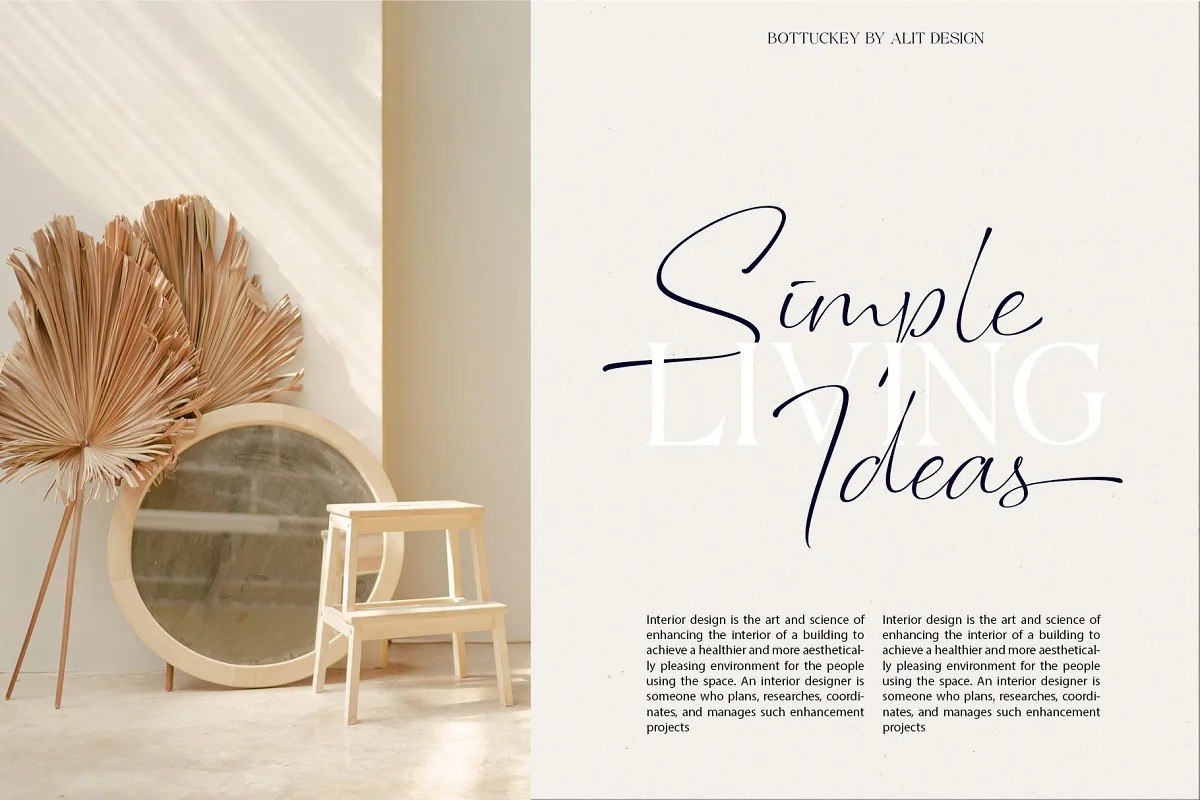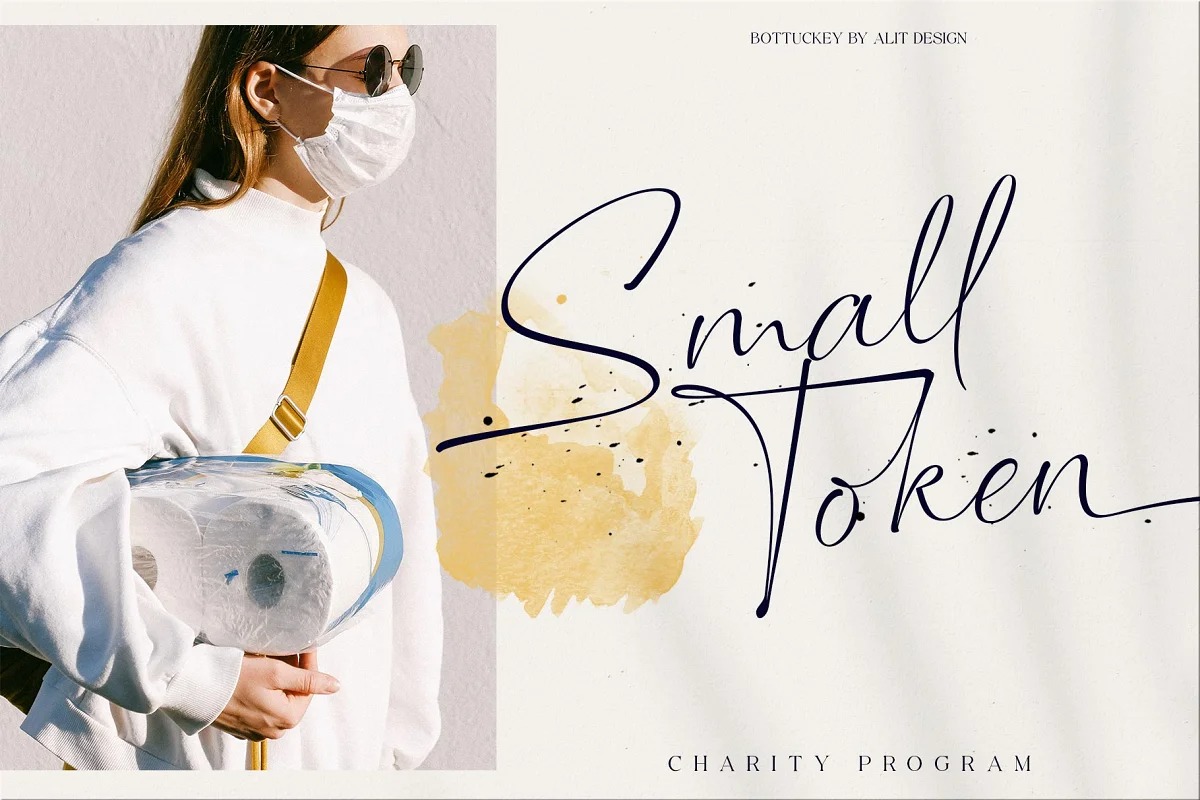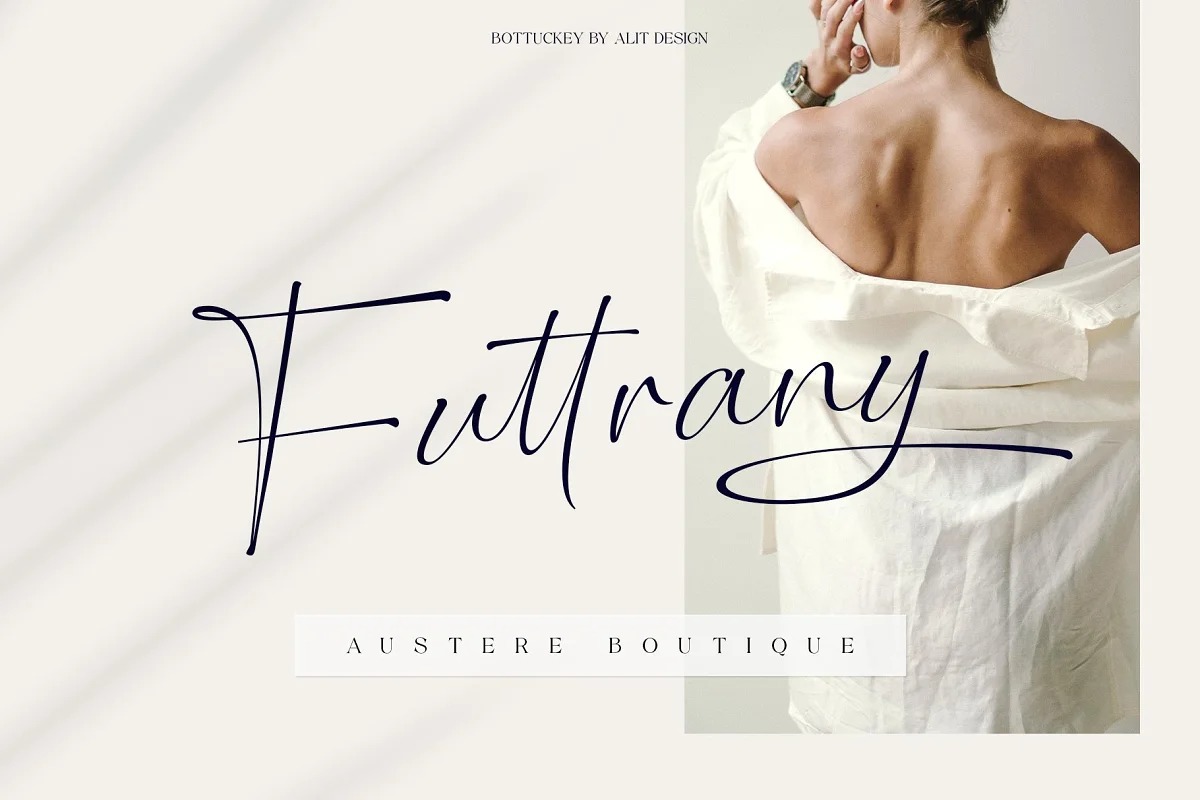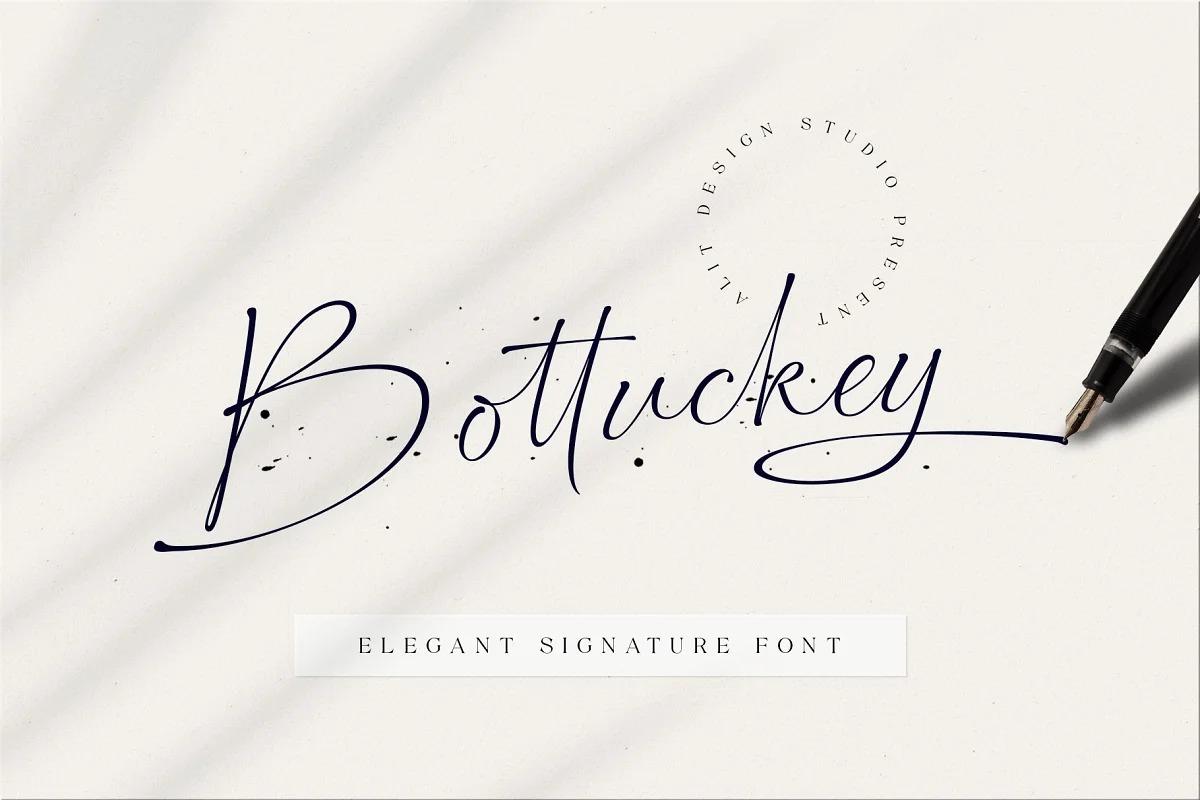
Bottuckey Font
Bottuckey Handwritten Font is a beauty and elegant handwritting script font crafted & designed by alit design. The Bottucke Signature Script font looks unique and charming which makes designs using the Bottucke Signature Script look more prominent and cool. The Bottucke Signature Script font is perfect for a collection of new fonts on your computer, tablet and smartphone for making unique designs or lettering.
The Bottucke Signature Script font is perfect for magazine cover designs, brochures, flyers. Instagram ads, Canva Design and so on with unique and modern concepts. besides that this font is very easy to use both in design and non-design programs because everything changes and glyphs are supported by Unicode (PUA).